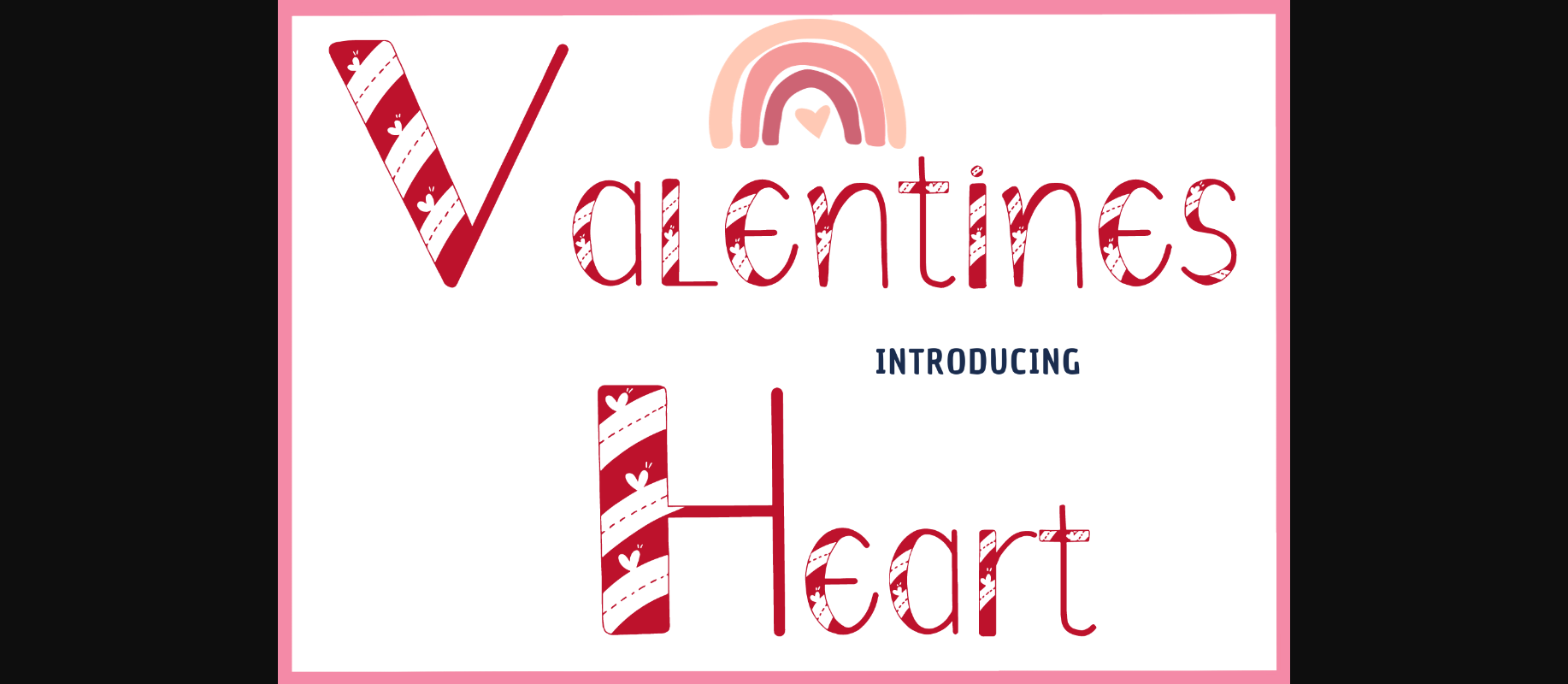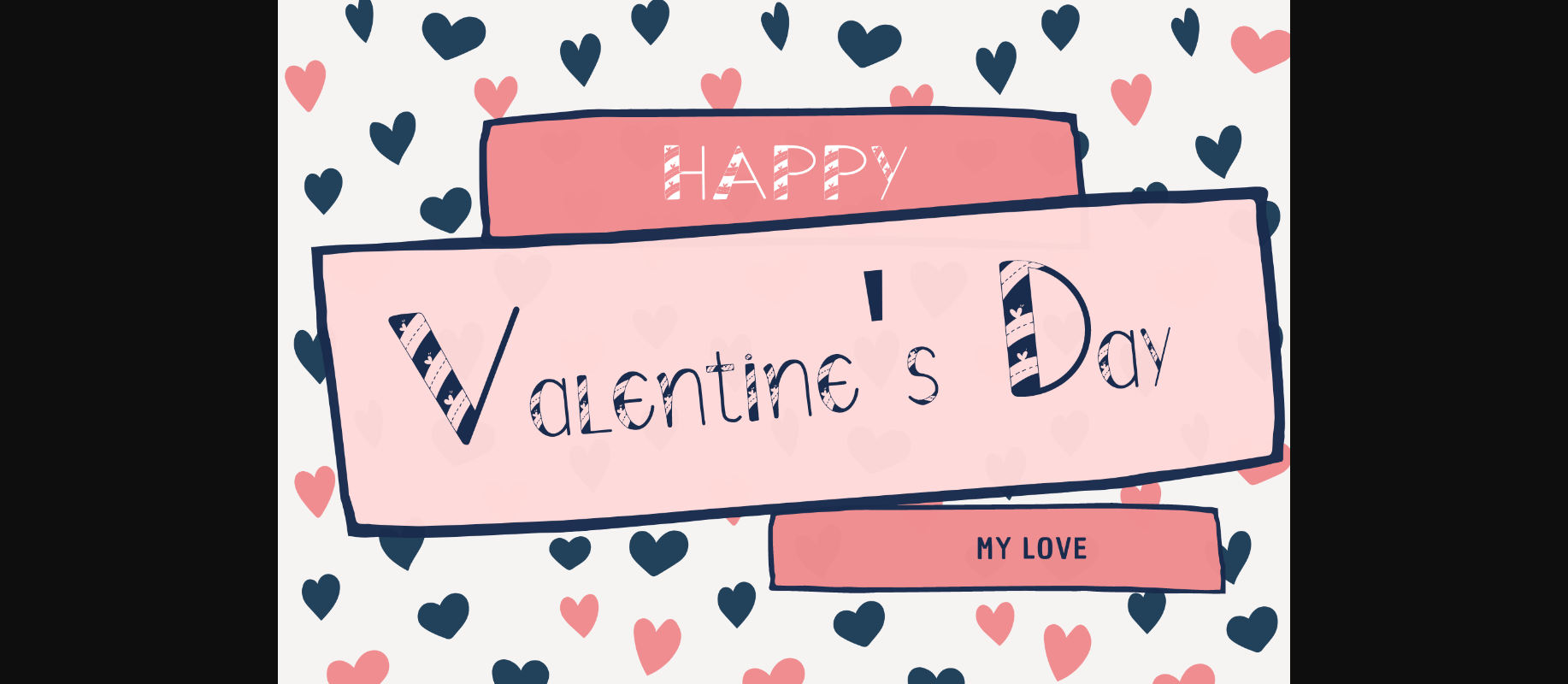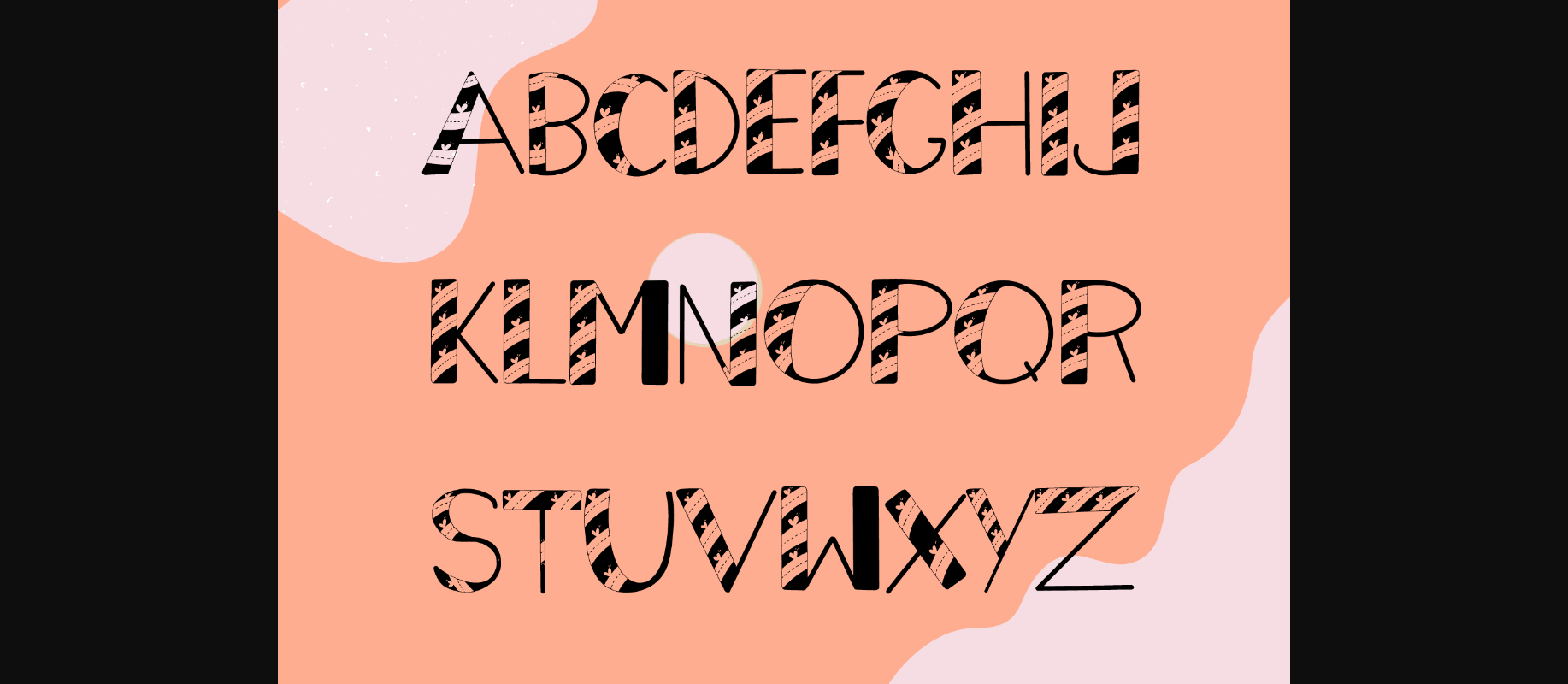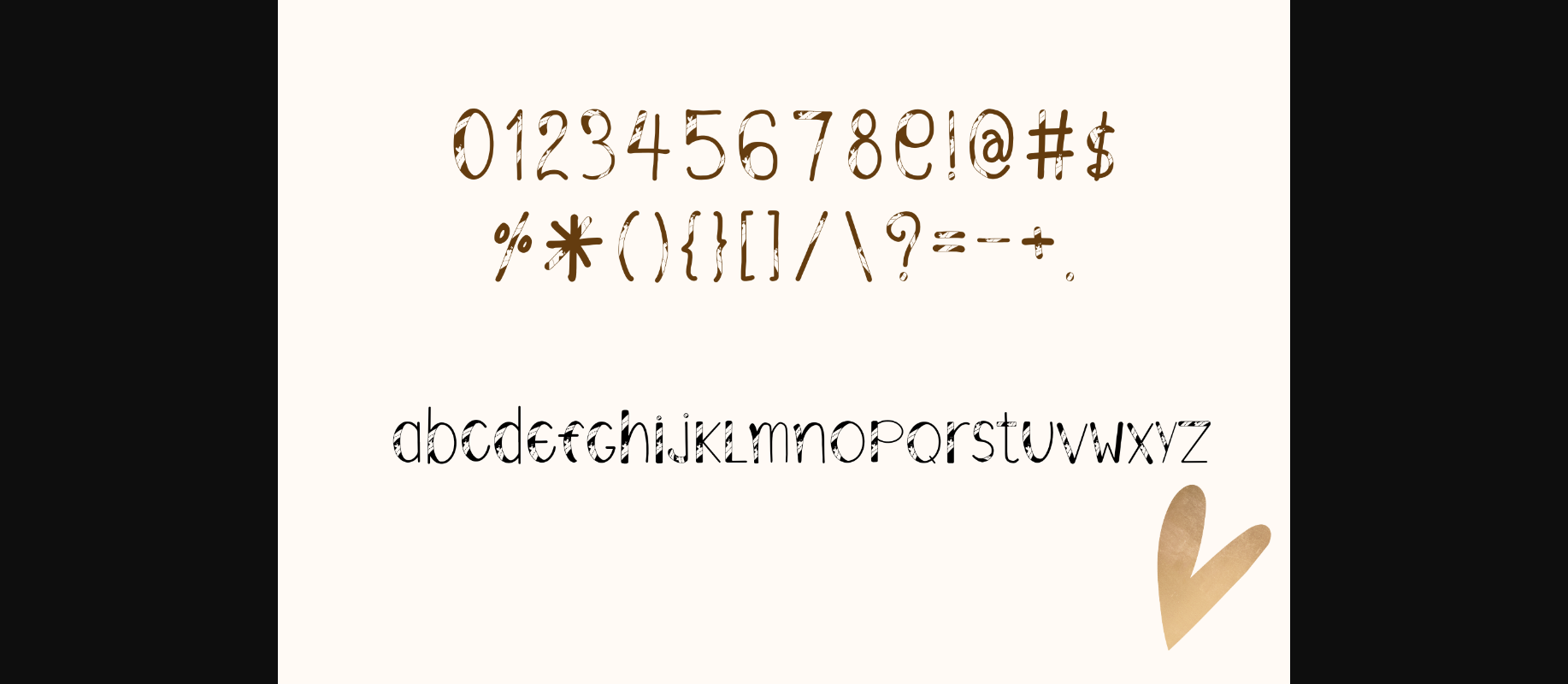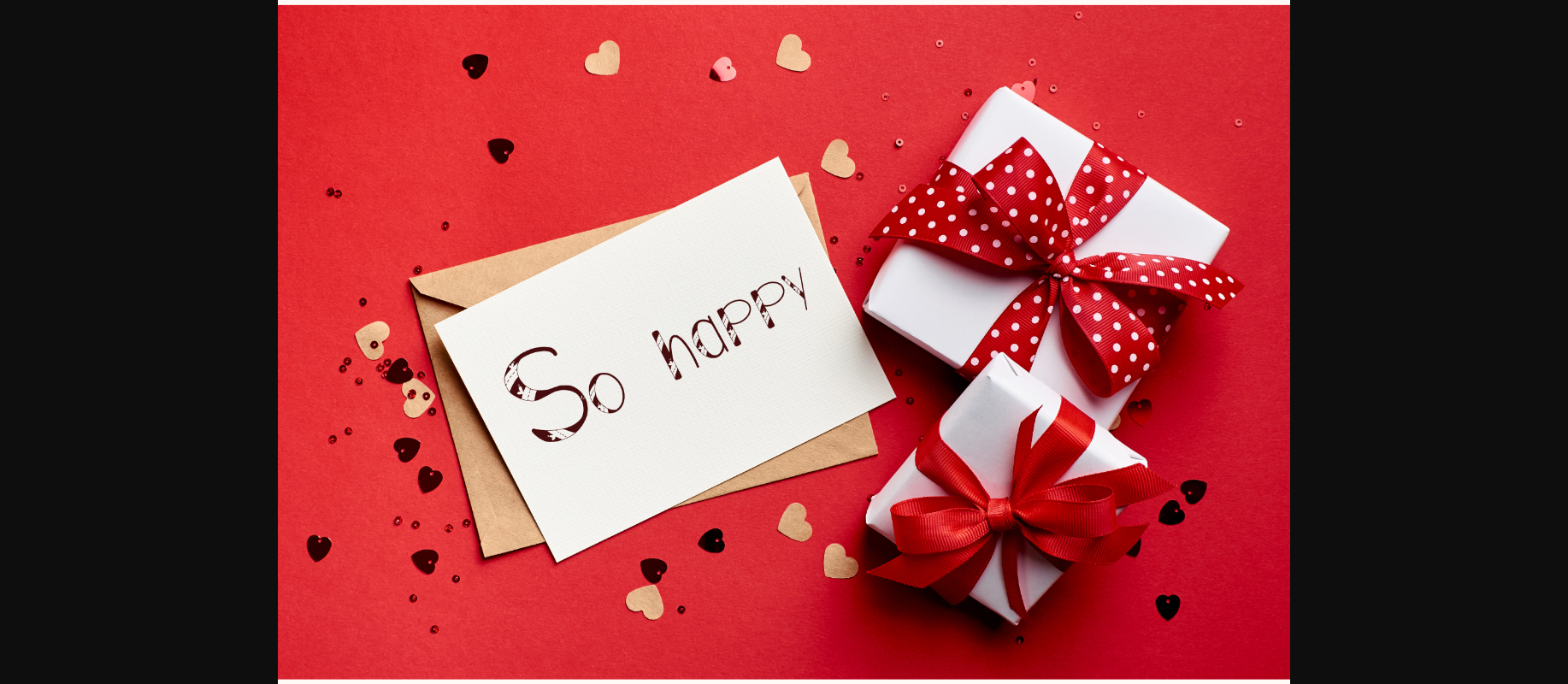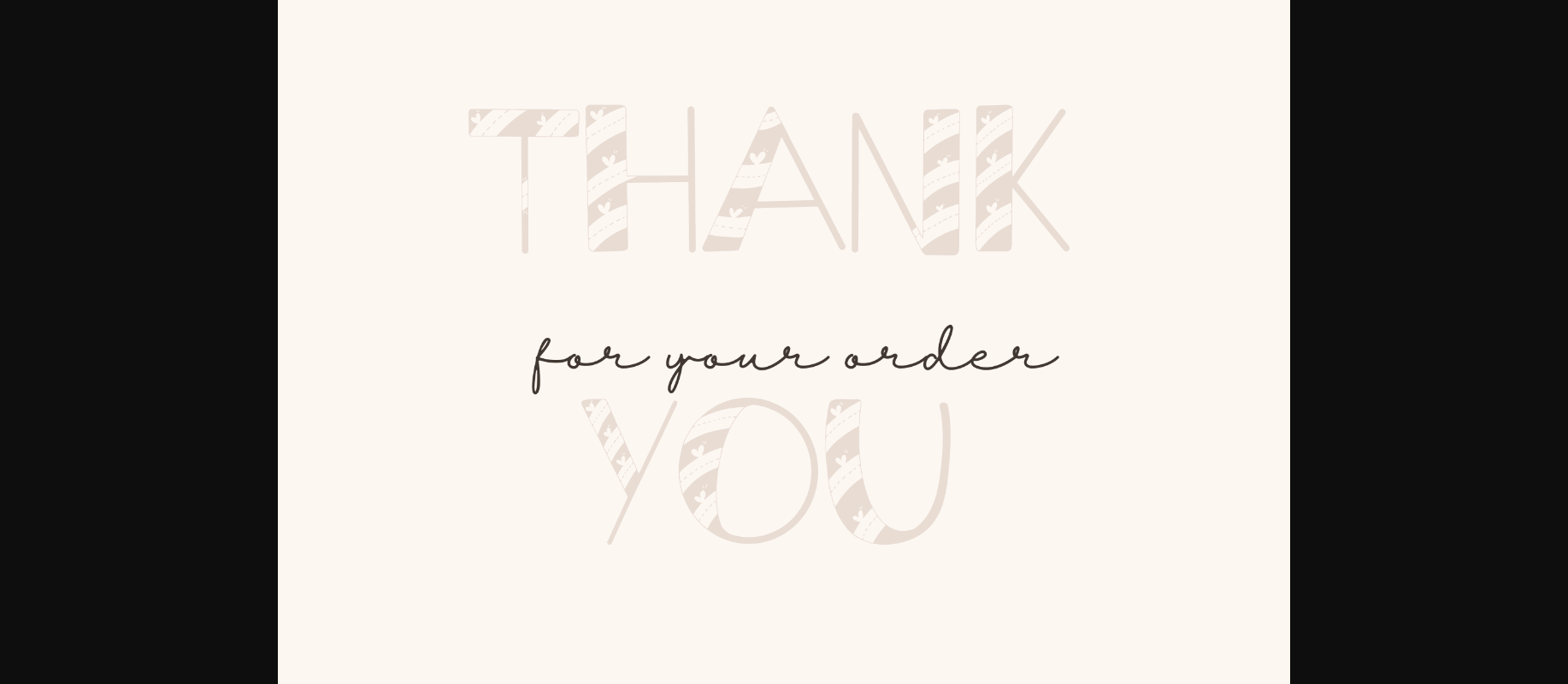
Valentines Heart is a super cute decorative font with a simple style suitable for teaching. Use it to decorate presentations, educational projects, advertising, illustrations, or anything that needs creative typography.